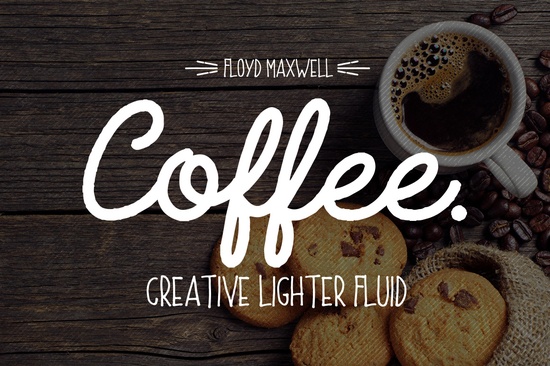
If you're looking for a warm, approachable font pairing that works well for café branding, handmade greeting cards, or cozy lifestyle printables, the Coffee Font + Extras Font is a thoughtful choice. It’s not flashy or overly stylized instead, it balances friendliness with quiet confidence. The set includes a clean sans serif and a relaxed script, plus decorative elements like flourishes, alternate characters, and coffee-themed dingbats. That makes it especially handy if you design for small businesses, create digital downloads, or run a print-on-demand shop focused on food, wellness, or home goods.
What’s actually in the Coffee Font + Extras Font set?
This isn’t just two fonts slapped together. You get:
- A friendly, slightly rounded sans serif great for headings, labels, or body text where clarity matters
- A smooth, natural-looking script font not too formal, not too wild; sits comfortably between casual handwriting and polished calligraphy
- Extras: swashes, ligatures, stylistic alternates, and charming coffee-related icons (like steam swirls, beans, and mugs)
- Full language support covering Western European languages, including accented characters
When does this font pair shine?
Think about projects where tone matters as much as typography. A bakery owner updating their packaging? This duo adds warmth without looking dated. A crafter designing “Thank You” tags for handmade soap? The script gives personality, while the sans keeps things legible at small sizes. Even bloggers building Pinterest-friendly quote graphics find it useful the contrast between the two styles creates visual rhythm without needing extra design layers.
It’s also a solid fit for seasonal collections. Try pairing it with earthy tones and linen textures for fall menus, or soft pastels and hand-drawn illustrations for spring tea shop branding. Unlike some script fonts that feel overly ornate or hard to read, this one stays grounded which helps when you’re balancing aesthetics with function.
How does it compare to other script-friendly options?
If you already own or have tried fonts like Breakfast Font, you’ll notice Coffee Font + Extras has a gentler slope and more open letterforms making it easier to pair with longer blocks of text. It’s less condensed than The Sunnyside Font, so it breathes better in tight layouts. And compared to Twenty Night Font, it avoids dramatic contrast between thick and thin strokes giving it more versatility across mediums (think embroidered patches vs. Instagram stories).
For those who love bundles, it complements well with the Neat & Clean Handwritten Font Bundle v1, especially if you want multiple script options for different moods. And if your brand leans rustic or vintage, Chicano Font offers a bolder, more textured alternative but Coffee Font + Extras fills the middle ground: relaxed, consistent, and quietly expressive.
Real-world tips for using it well
You don’t need advanced design skills to get good results. Here’s what helps:
- Use the sans serif for anything functional prices, ingredients, disclaimers, or website navigation
- Reserve the script for emotional emphasis shop names, taglines, or short quotes (“Brewed with care”, “Good morning, sunshine”)
- Try the extras sparingly one well-placed bean icon or swoosh can anchor a layout better than three
- Test readability at real sizes especially if printing on kraft paper or embroidering onto fabric, where fine details can blur
One thing users appreciate is how smoothly it imports into cutting machines. If you cut vinyl decals or make iron-on transfers for mugs and tote bags, the clean outlines and consistent spacing mean fewer trimming adjustments and cleaner cuts.